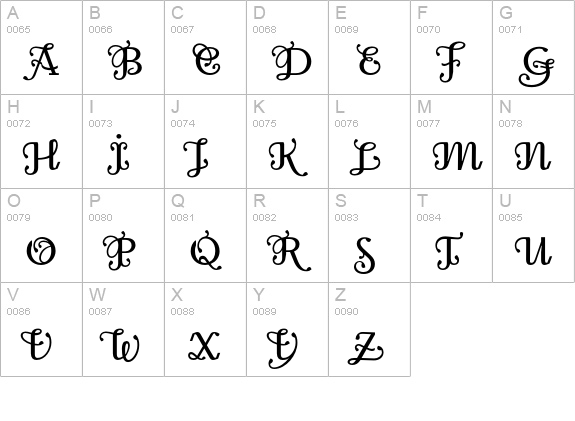
Odile-DecoInitials is a stunning and elegant font that exudes sophistication and style. Its intricate design and artistic flair make it perfect for adding a touch of class to any project. The swirling patterns and decorative elements of this font are sure to captivate and impress. The best part about Odile-DecoInitials is that it is available for free download at FontsMarket.com. This means that you can easily access and use this beautiful font without any cost. Whether you're working on a personal project, designing invitations, or creating branding materials for your business, Odile-DecoInitials is the perfect choice to elevate your designs. Download it today and add a touch of glamour to your work!